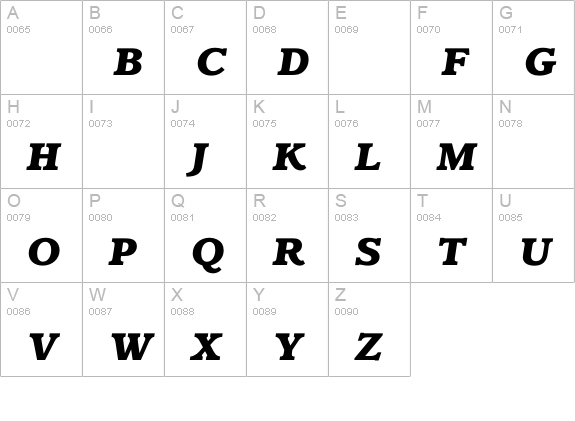
ClaremontExBldIt Font Details
ClaremontExBldIt font is a bold and striking typeface that exudes elegance and sophistication. Its elongated letterforms and sharp angles give it a modern and chic look, making it perfect for headlines, titles, and branding projects. The strong weight of the font commands attention and adds a sense of authority to any design it is used in. What sets ClaremontExBldIt font apart is that it is available for free download at FontsMarket.com. This means that you can easily access this high-quality font without any cost, making it a valuable asset for designers, creatives, and anyone looking to elevate their projects with a touch of style and uniqueness. Whether you are working on a poster, logo, website, or any other design project, ClaremontExBldIt font is sure to make a bold statement and leave a lasting impression. Download it for free today and start creating stunning visuals that stand out from the crowd.